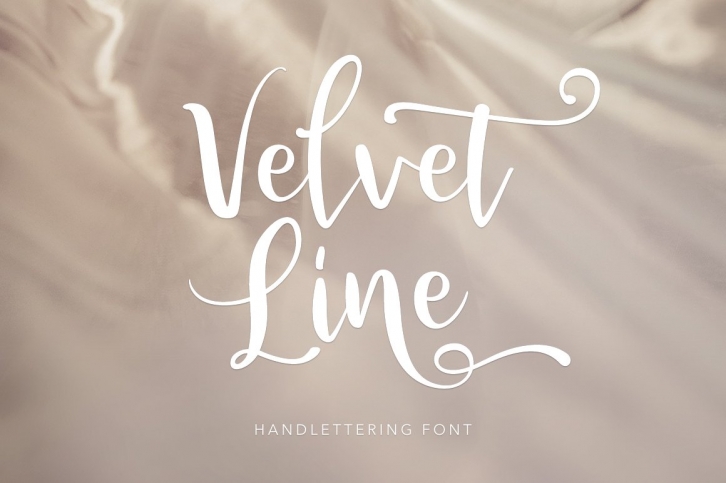
Velvet Line - a new hand lettering font.
This font is ideal for branding and decorate your any project, are perfect for wedding invitation or your blog. Also with their help, you can create a logo or beautiful frame for your home. Or just use for your small business, book covers, stationery, marketing, magazines and more.Especially for you, I have prepared a lot of alternatives that would be your project was more unique.